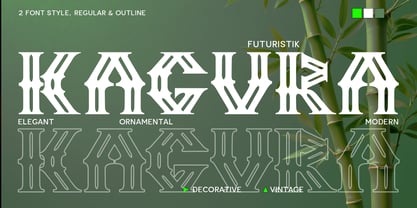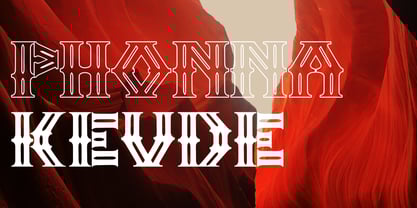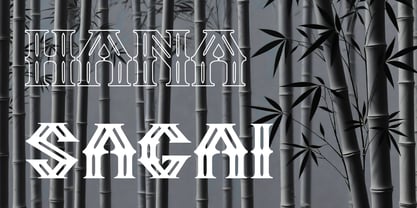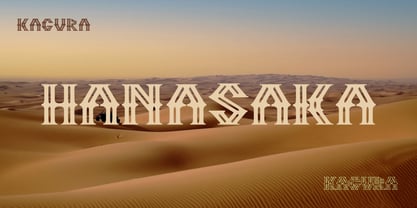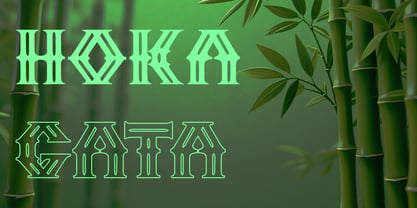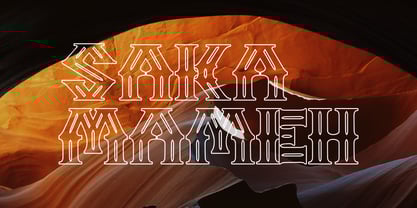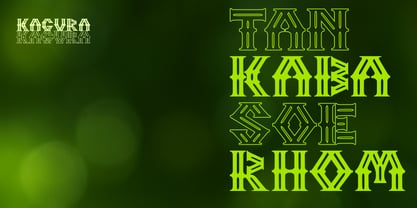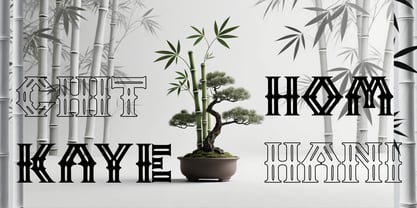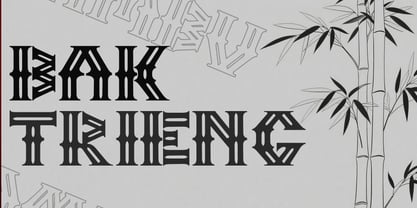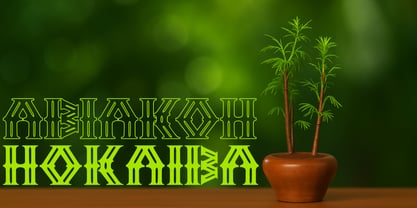
Kagura
von Kaidosan
Die Schriftfamilie Kagura wurde von Muhammad Ansari entworfen und von Kaidosan veröffentlicht. Kagura enthält 2 Stile.
Kagura is a decorative ornamental typeface that blends classical elegance with a modern twist. Designed with intricate details while maintaining legibility, Kagura features graceful curves, symmetrical embellishments, and geometric accents that give it a refined and contemporary aesthetic.